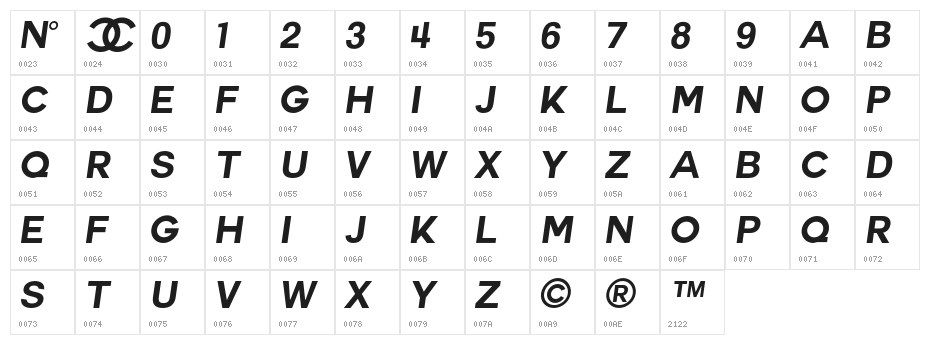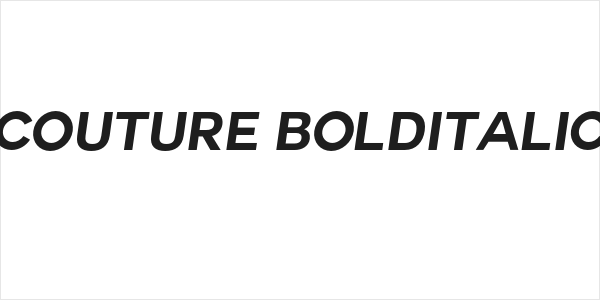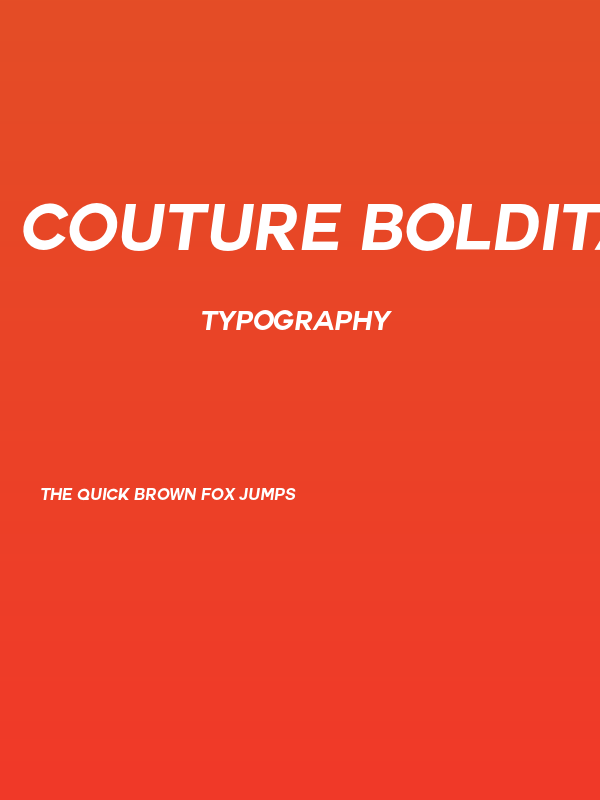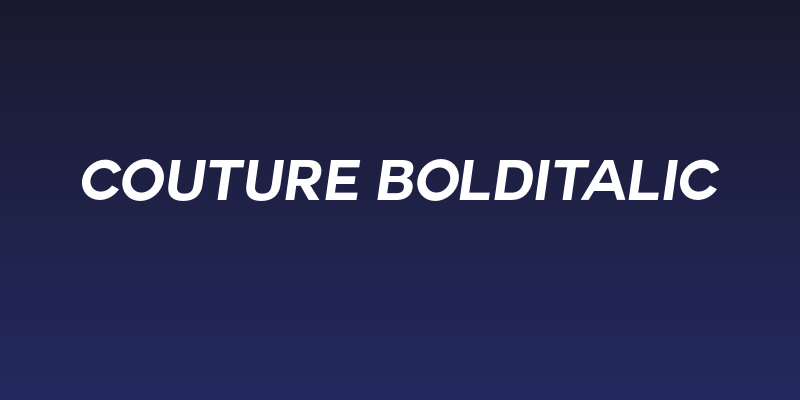
Couture-BoldItalic Font
Couture-BoldItalic Description
This font exhibits a bold and italicized style, characterized by its strong, slanted letterforms that convey a sense of modernity and sophistication. The uppercase and lowercase letters maintain a consistent weight, providing a uniform appearance across the typeface. The numerals are equally bold, ensuring readability and impact. Special characters are designed with the same attention to detail, seamlessly integrating with the overall aesthetic. The font's clean lines and smooth curves make it suitable for a variety of design applications, offering both elegance and clarity.